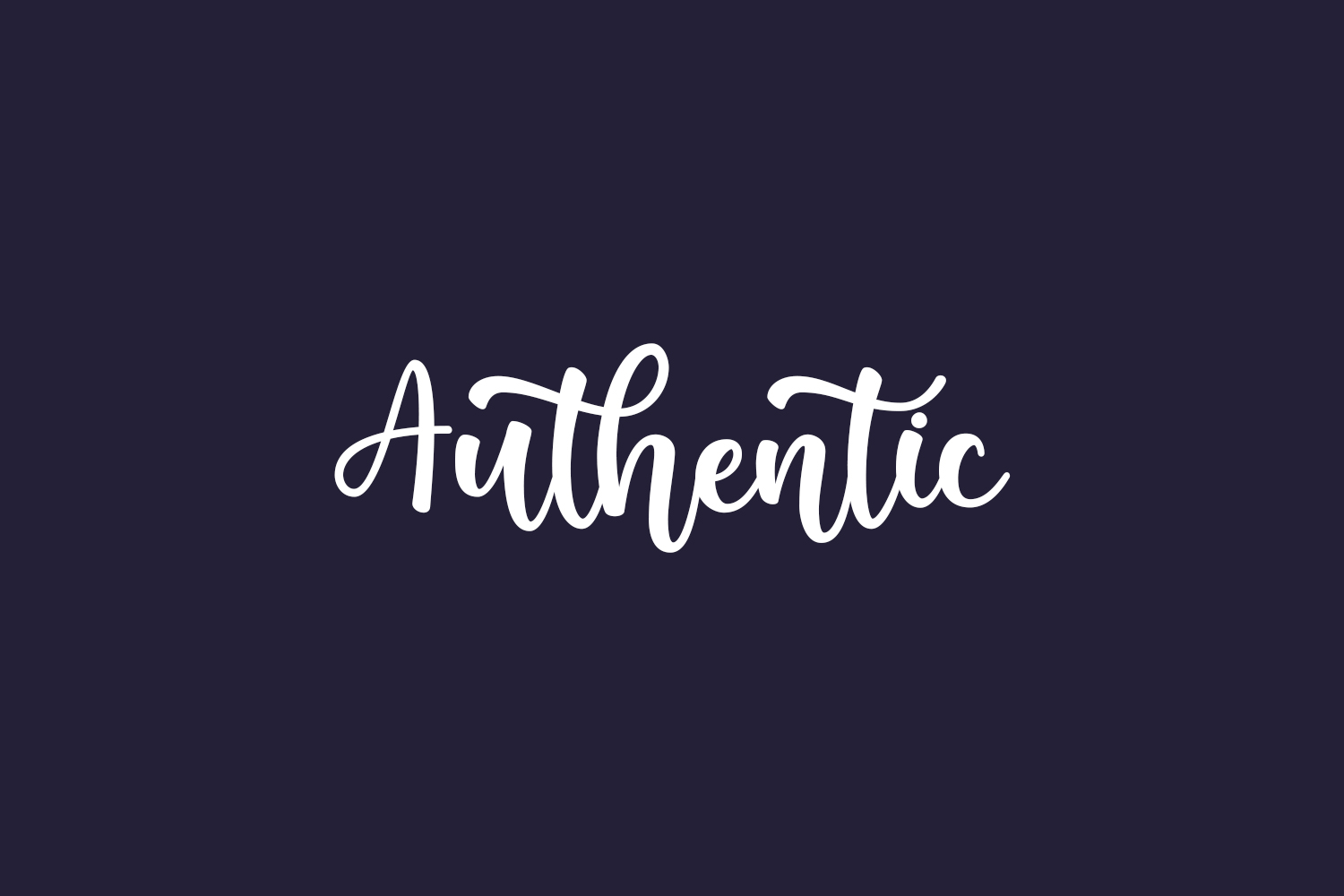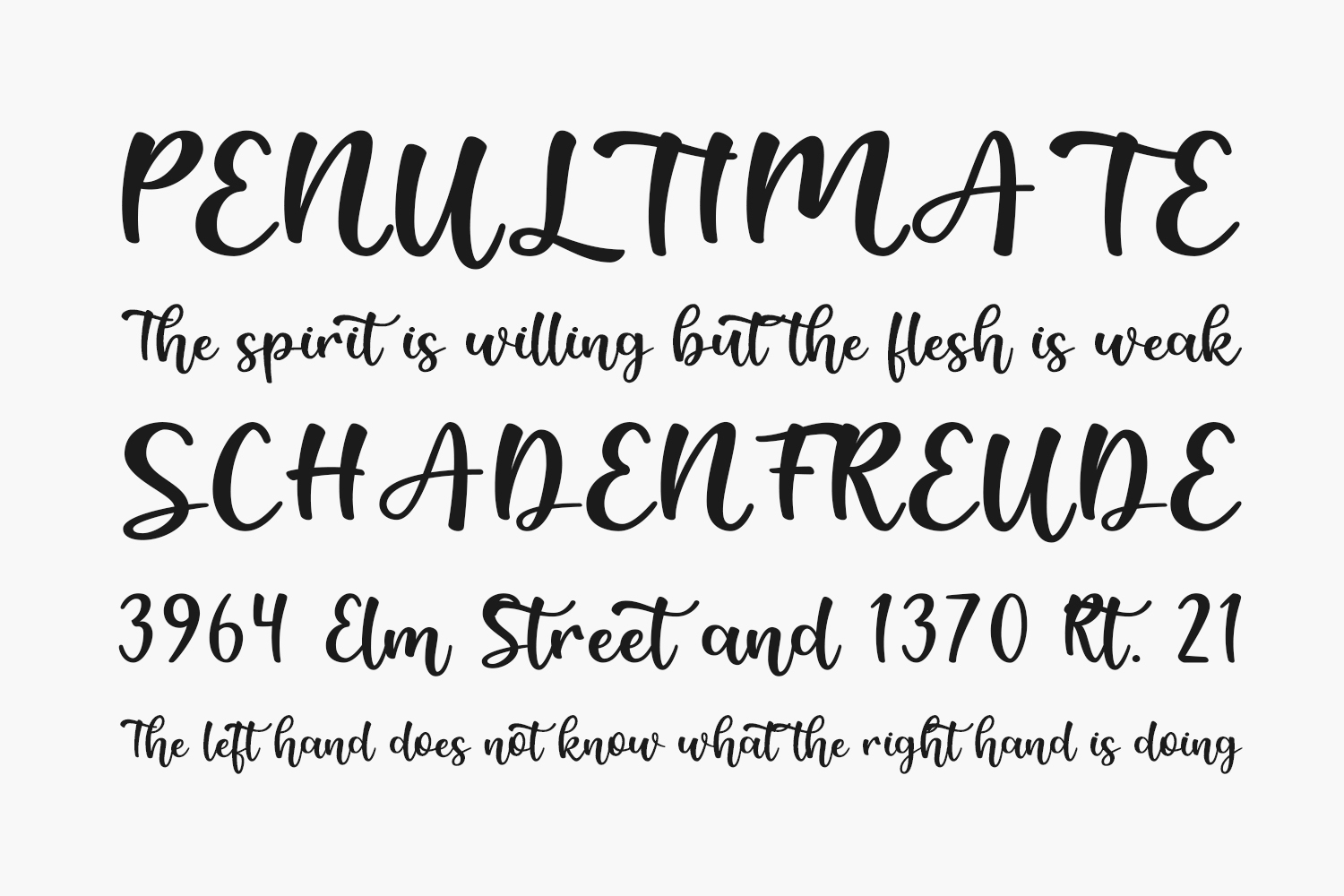
Authentic Free Font is a beautiful soft hand-lettered script font. Fall in love with its authentic feel and use it to create gorgeous wedding invitations, beautiful stationary art, eye-catching social media posts, and cute greeting cards. Authentic Free Font was designed by Nirmala Creative and is free for personal use only. Please purchase the full version for commercial use.